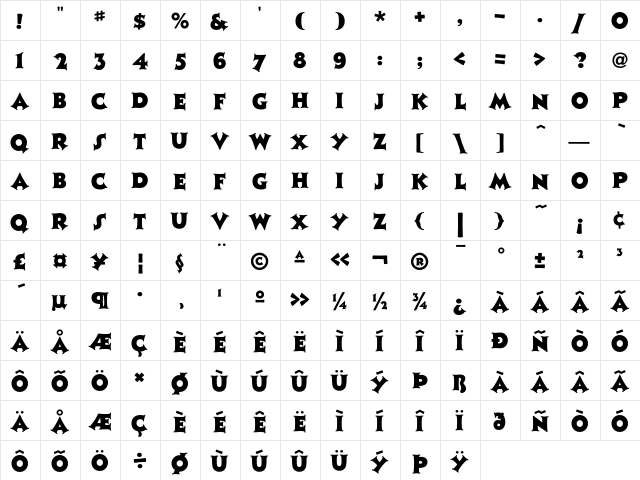
JazzPosterICG Regular Font Preview
JazzPosterICG Regular
Design Context for JazzPosterICG Typeface
JazzPosterICG is a composed and adaptable typeface that performs quietly and consistently across a wide range of design contexts.
Pro Tip: Use JazzPosterICG in both headline and body roles to test its range before committing to a single application.